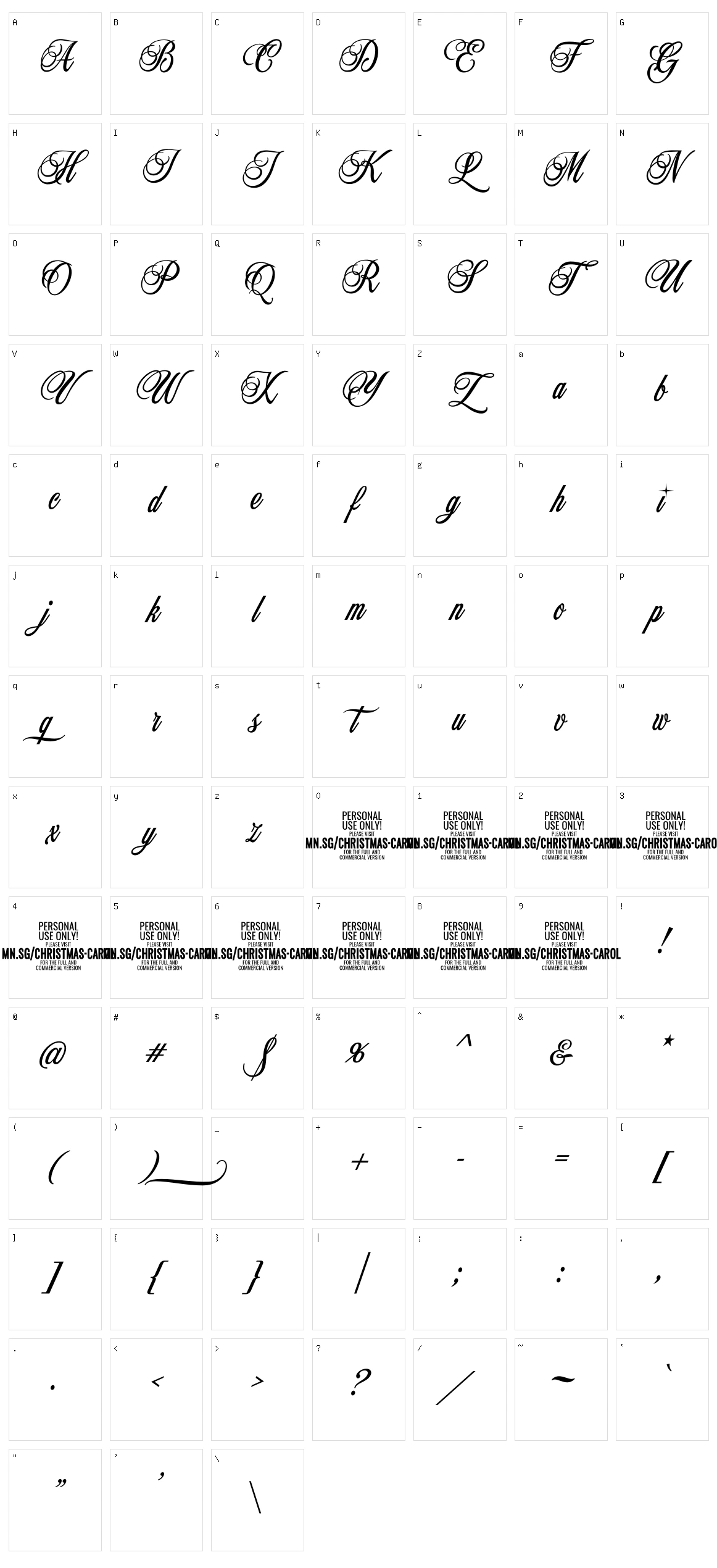
Christmas Carol is a classic typeface that embraces the holiday spirit.
The flowing script's formal nuances evoke the joyful melody of your favorite festive tunes, making it an ideal choice for capturing the essence of familiar warmth and merriment.
Infused with a touch of nostalgia, Christmas Carol brings a traditional yet beautiful aesthetic to your seasonal greetings and designs. Whether you're crafting invitations for a celebratory dinner or creating a banner for a winter wonderland event, this typeface wraps your words in the comfort of yuletide cheer.
Using the Star version, use parenthesis characters ( ) [ ] { } to make surrounding stars.
Example: (reindeer) [sleigh]
Use underscore _ to make a swash, or multiple underscores to make them longer.
Example: Santa Claus______
The Christmas Carol font family consists of four styles:
Regular Script, the decorated Star 1 and Star 2, as well as a Xmas symbol version.
Beyond its seasonal charm, Christmas Carol is crafted with precision and quality, offering a suite of OpenType features that include stylistic alternates, contextual ligatures, and additional flourishes, ensuring your creations are as unique as a snowflake. It supports a wide range of languages, covering the all Latin-based scripts, from the frosty tips of Scandinavia to the diverse cultures of Southeast Asia.
Designed by Mans Greback, a designer renowned for his dedication to craftsmanship and detail, Christmas Carol is more than a fontâit's a celebration of the birth of Jesus Christ.